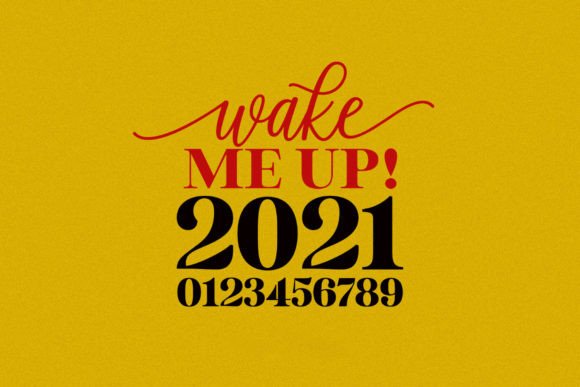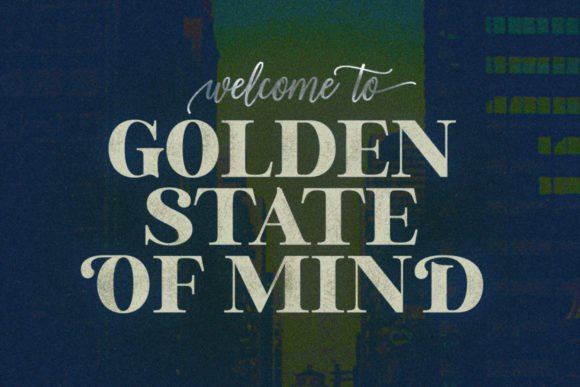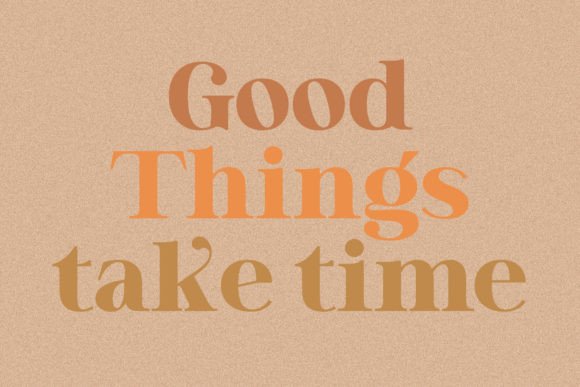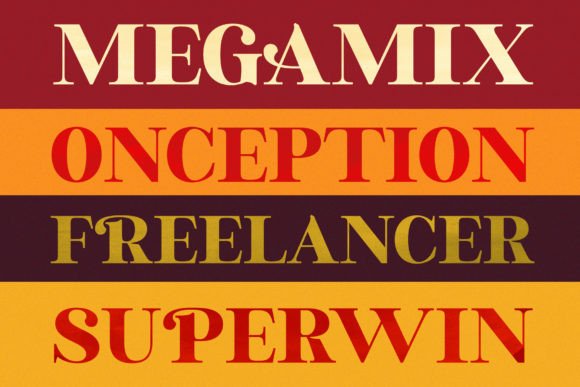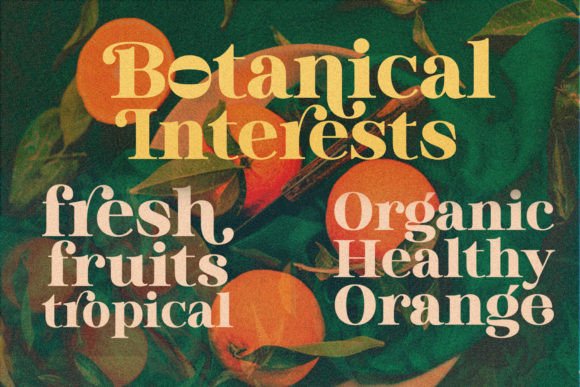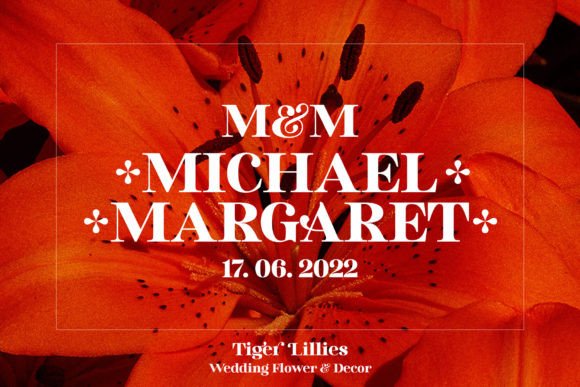
Introduction to Binggo Wood Font
Bingo Wood Display in totality and elegance.
One of my newest first releases, hand-drawn with pinpoint accuracy Bingo Wood has the perfect amount of simplicity and subtlety for your next project.